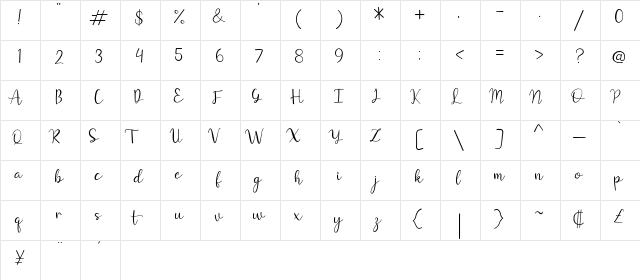
Juttely Regular
| Foundry | LOVOOS |
| Designer | LOVOOS |
Design Context for Juttely Typeface
Juttely is a composed and adaptable typeface that performs quietly and consistently across a wide range of design contexts.